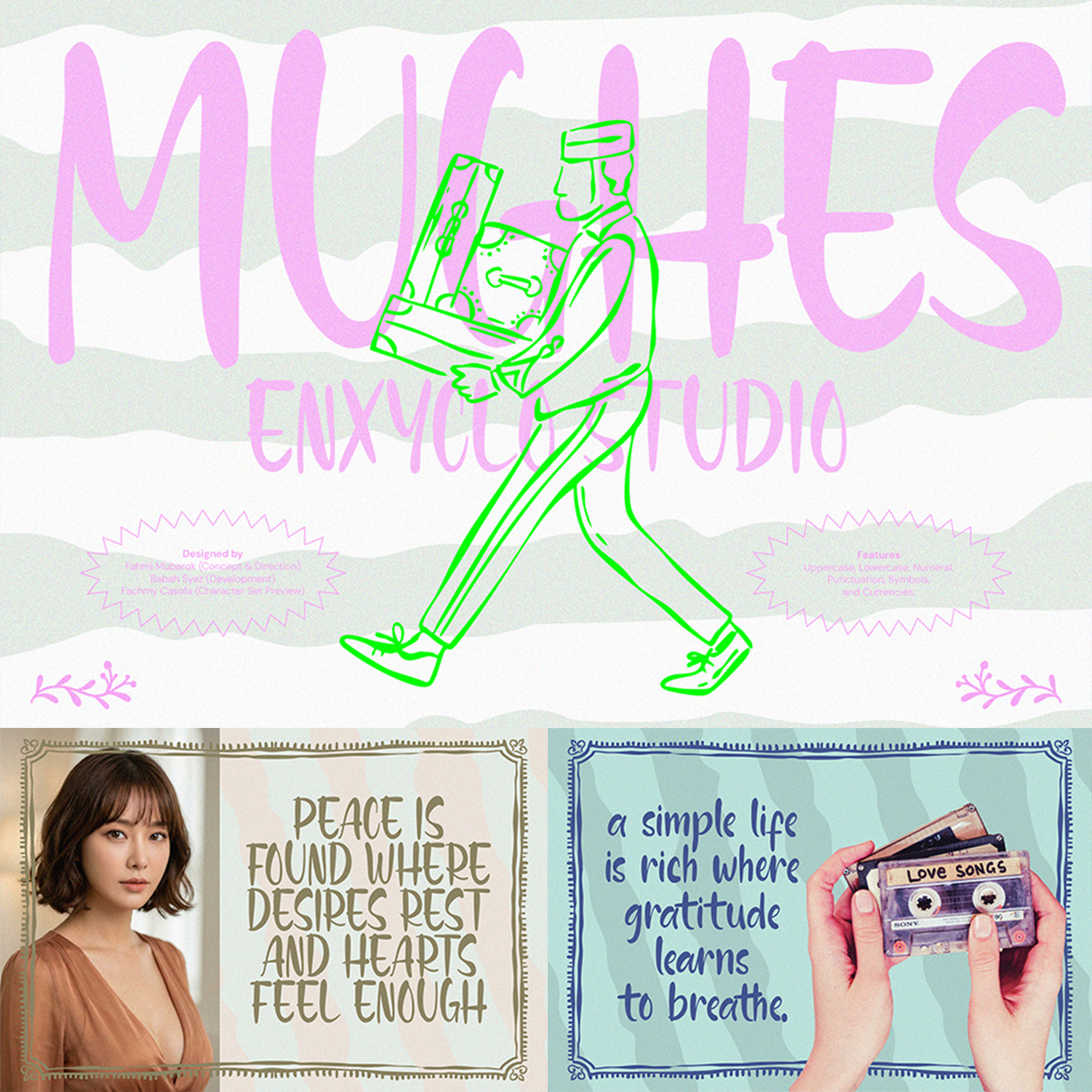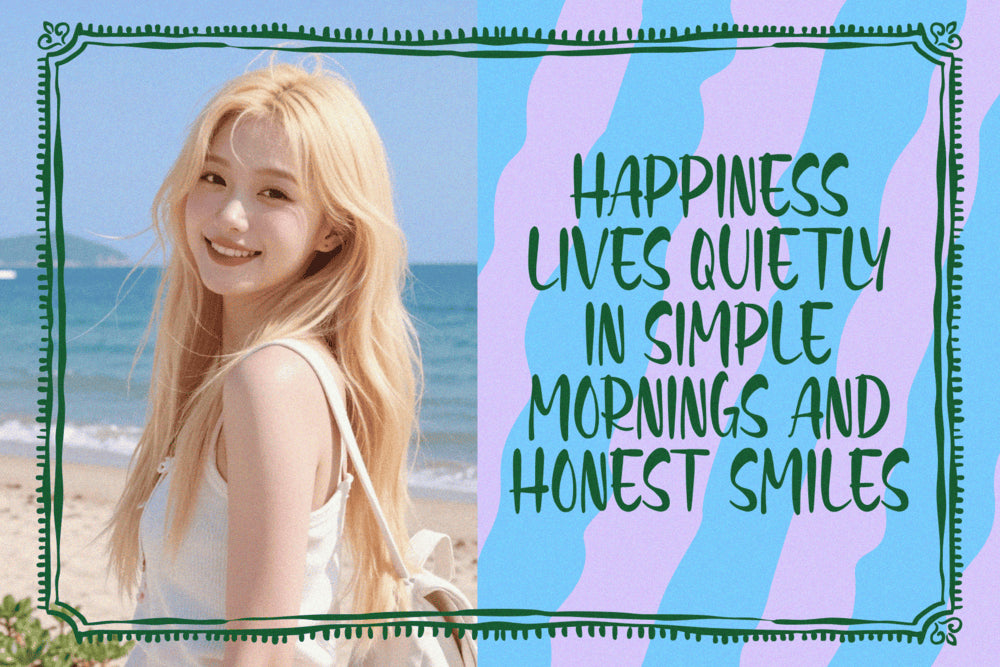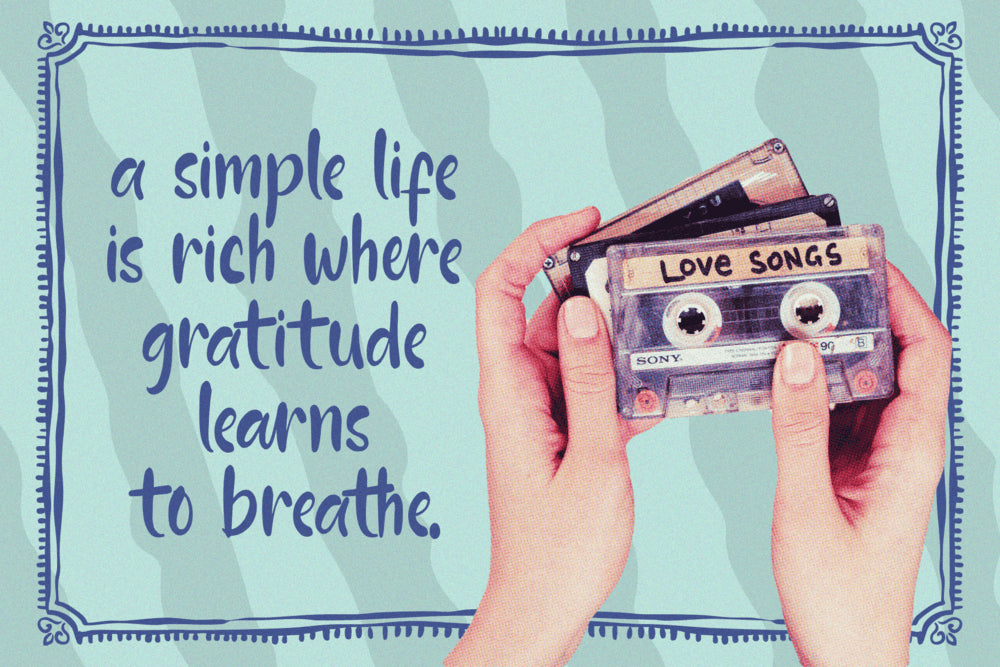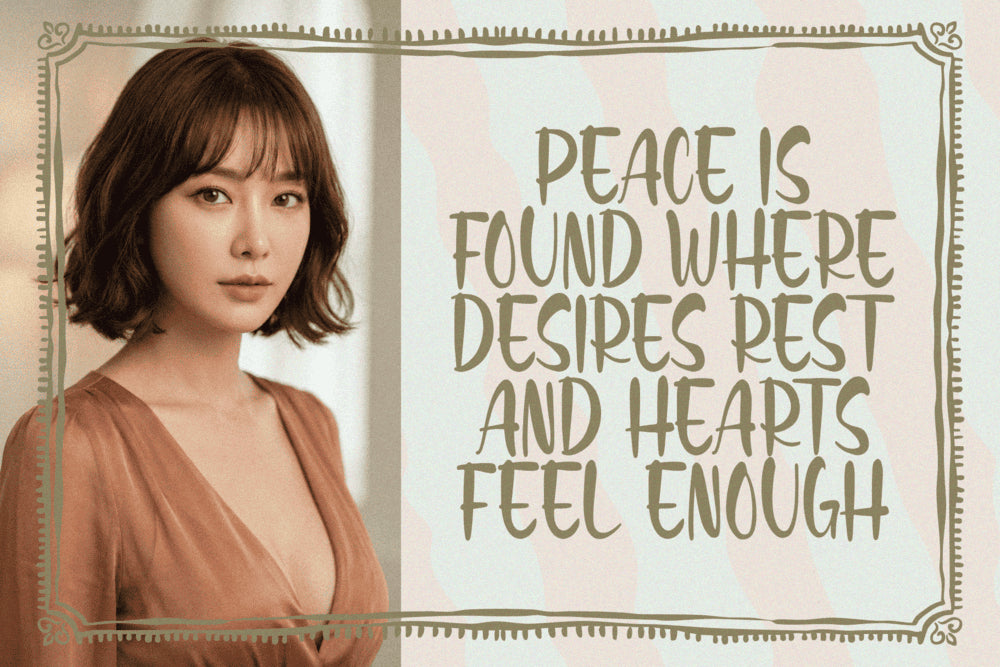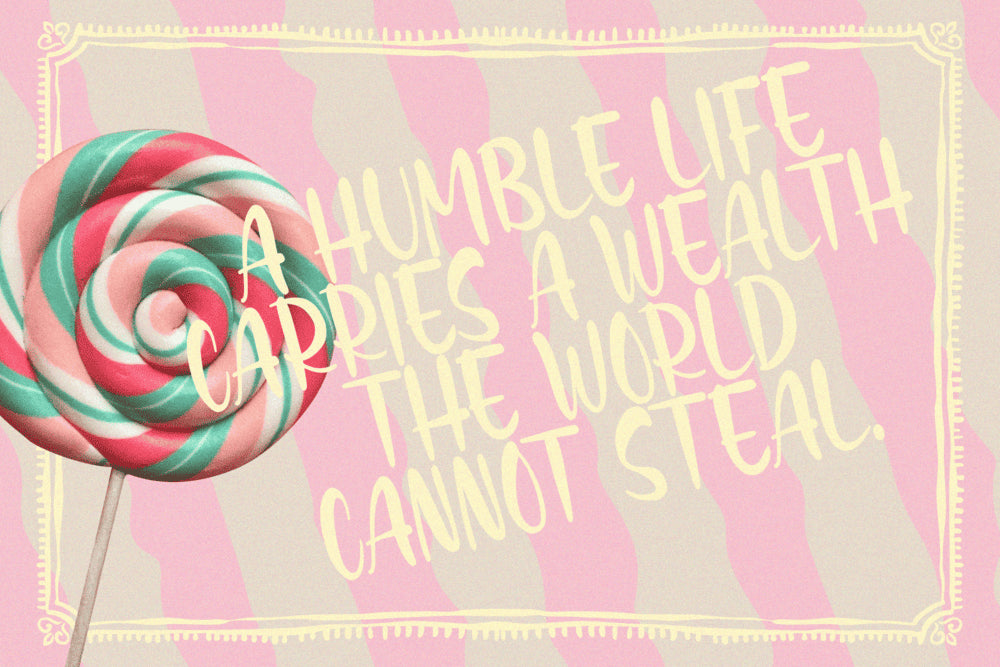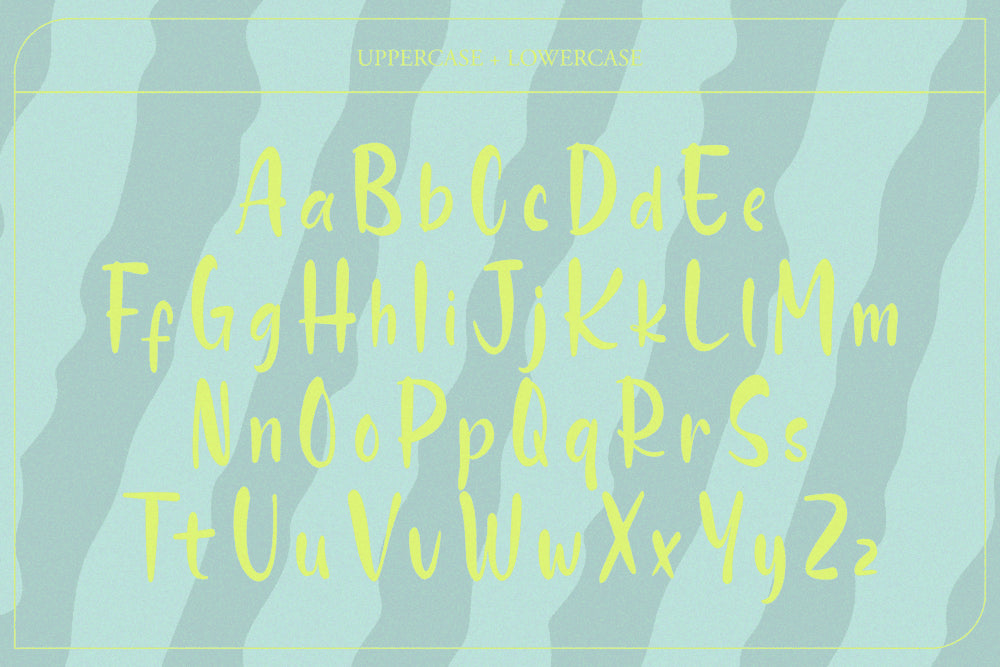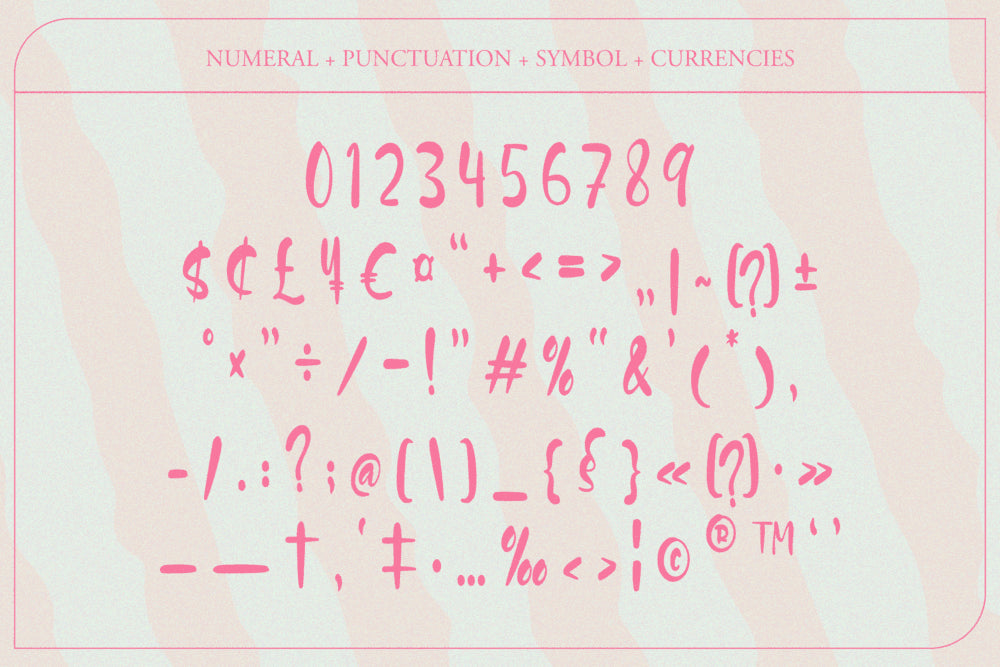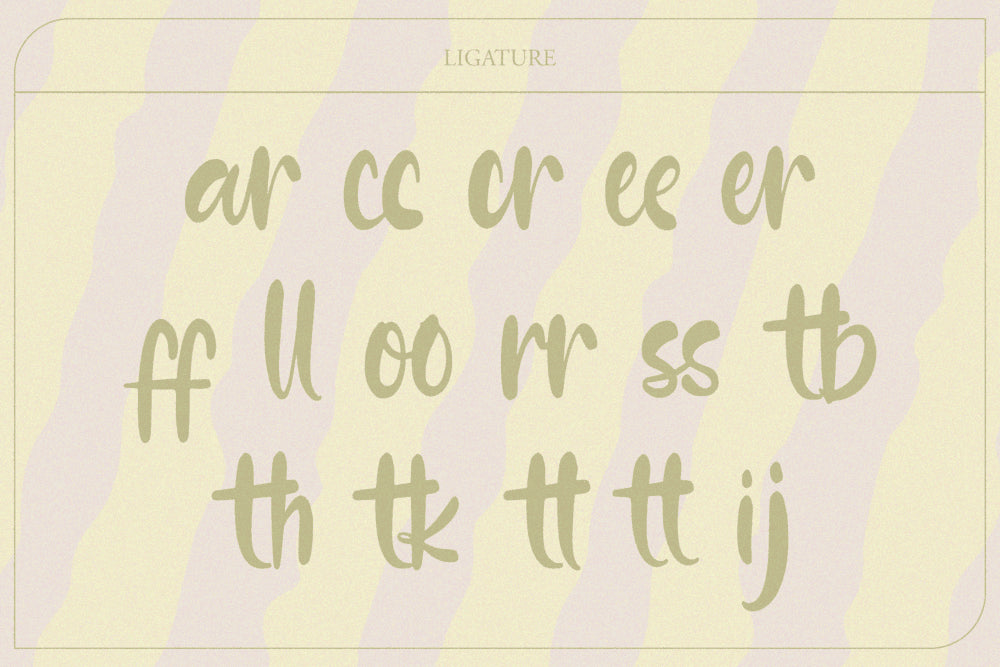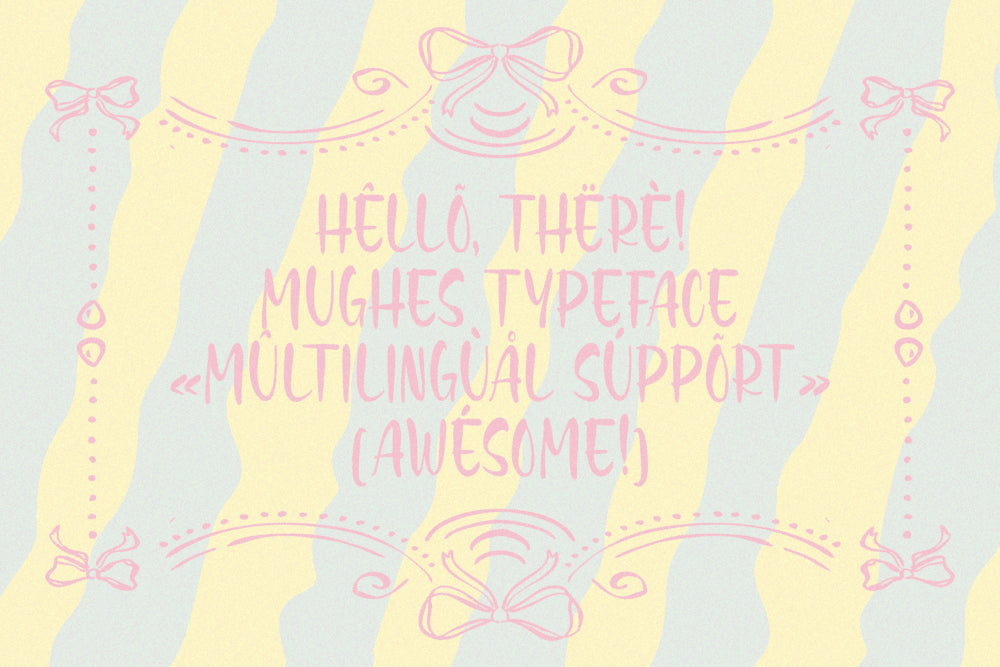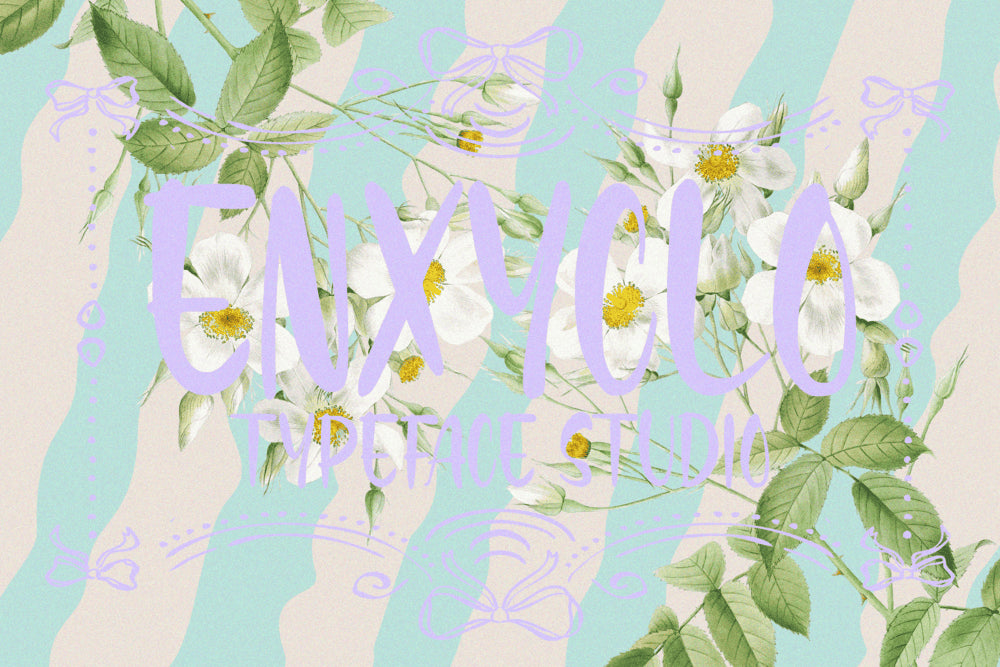
MUGHES — Fun Whimsical Display Font
MUGHES is a fun display font filled with quirky charm and joyful energy. Designed with curly, handmade letterforms, it delivers a cheerful, funny, and funky personality that instantly brings a smile to your designs. Its playful curves and soft imperfections create a cute yet fancy look, perfect for projects that need warmth and imagination.
Inspired by fairytale worlds, magical fantasies, and dreamy storytelling, MUGHES feels light, whimsical, and full of wonder. The font blends vintage country charm with a cozy shabby chic aesthetic, making it ideal for labels, scrapbook designs, home décor, and creative handmade projects.
Whether you’re crafting something imaginative, charming, or simply lovely, MUGHES turns words into a delightful visual experience.
FEATURE
Uppercase & lowercase
Punctuation, currency & symbol set
Ligature
Multilingual support
MUGHES is a whimsical display font featuring curly, handmade letterforms that offer a cheerful and playful aesthetic. It includes uppercase and lowercase letters, punctuation, currency symbols, ligatures, and multilingual support, available in OTF, TTF, and WOFF formats.